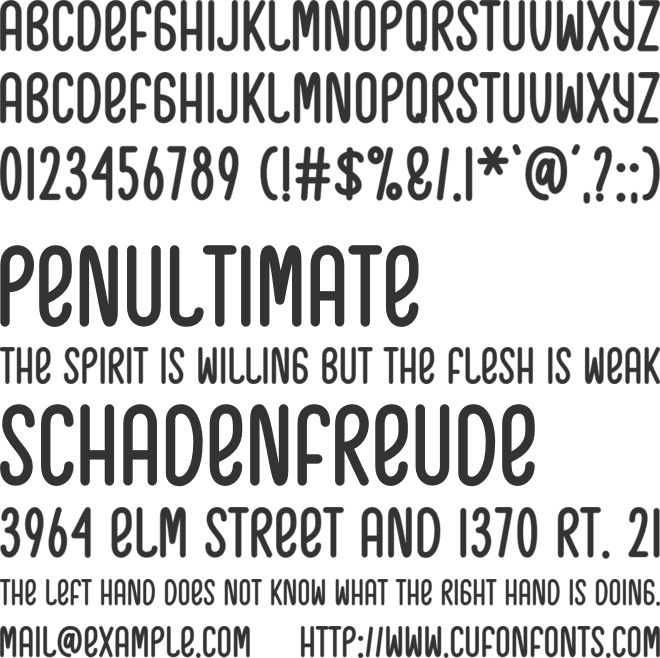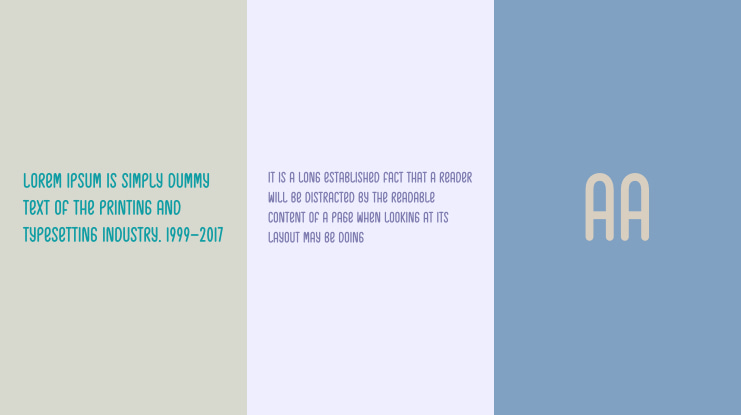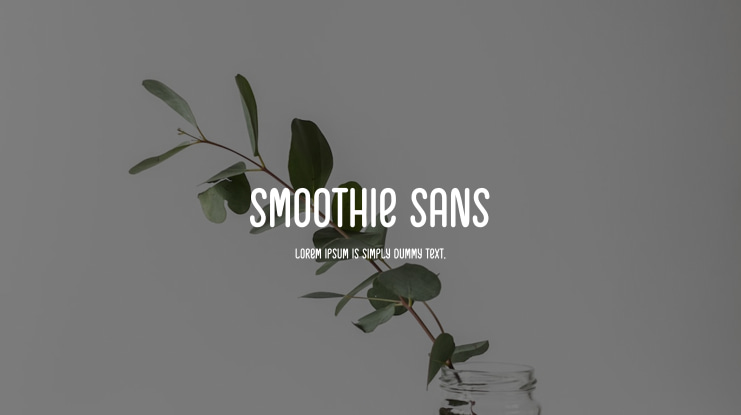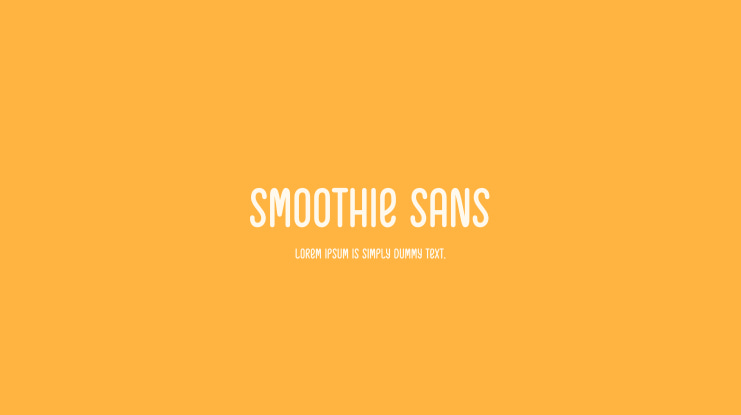
Smoothie Sans Font
Absolute Smoothie Duo is an elegant and versatile duo font featuring both sans serif and script styles, making it ideal for a wide range of applications. Whether designing greeting cards or crafting captivating headlines, this font is sure to add a romantic flair to your creations. It's PUA encoded, allowing easy access to all glyphs and ligatures.
Smoothie Sans font preview
DN Creative